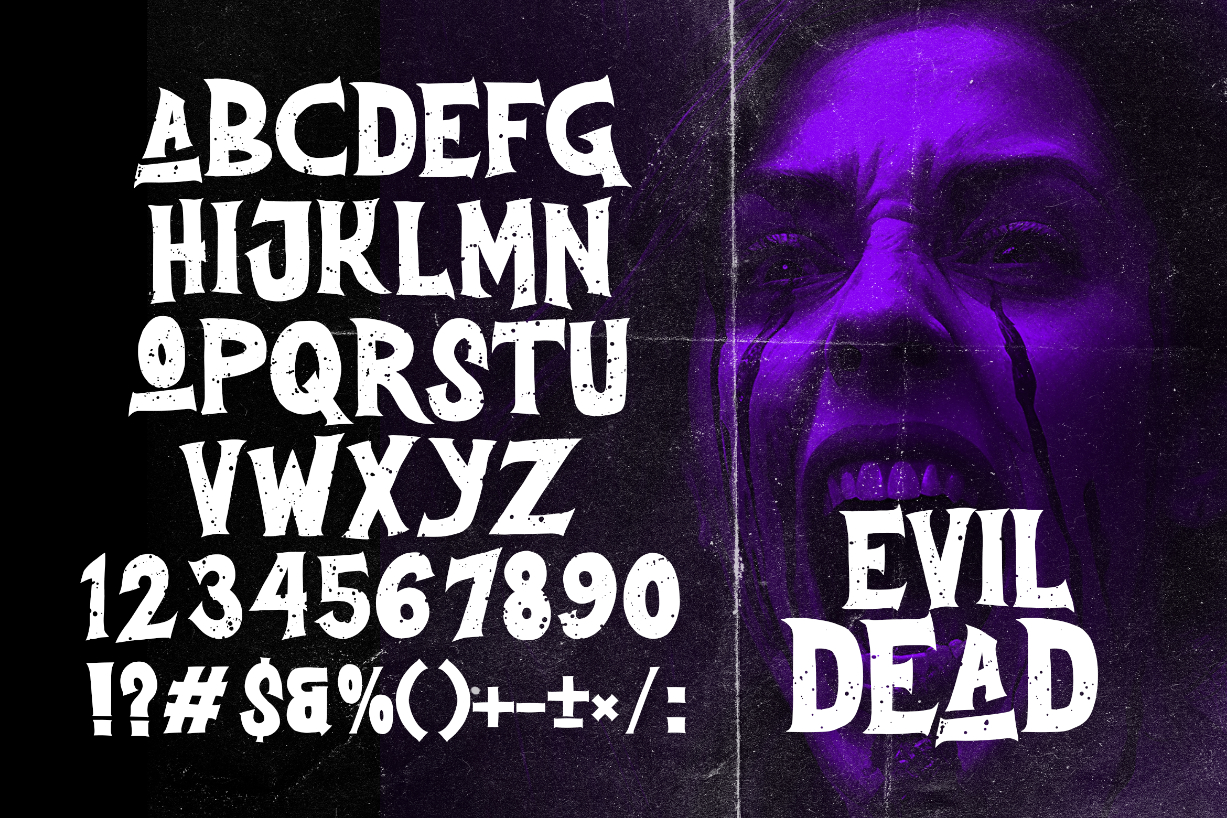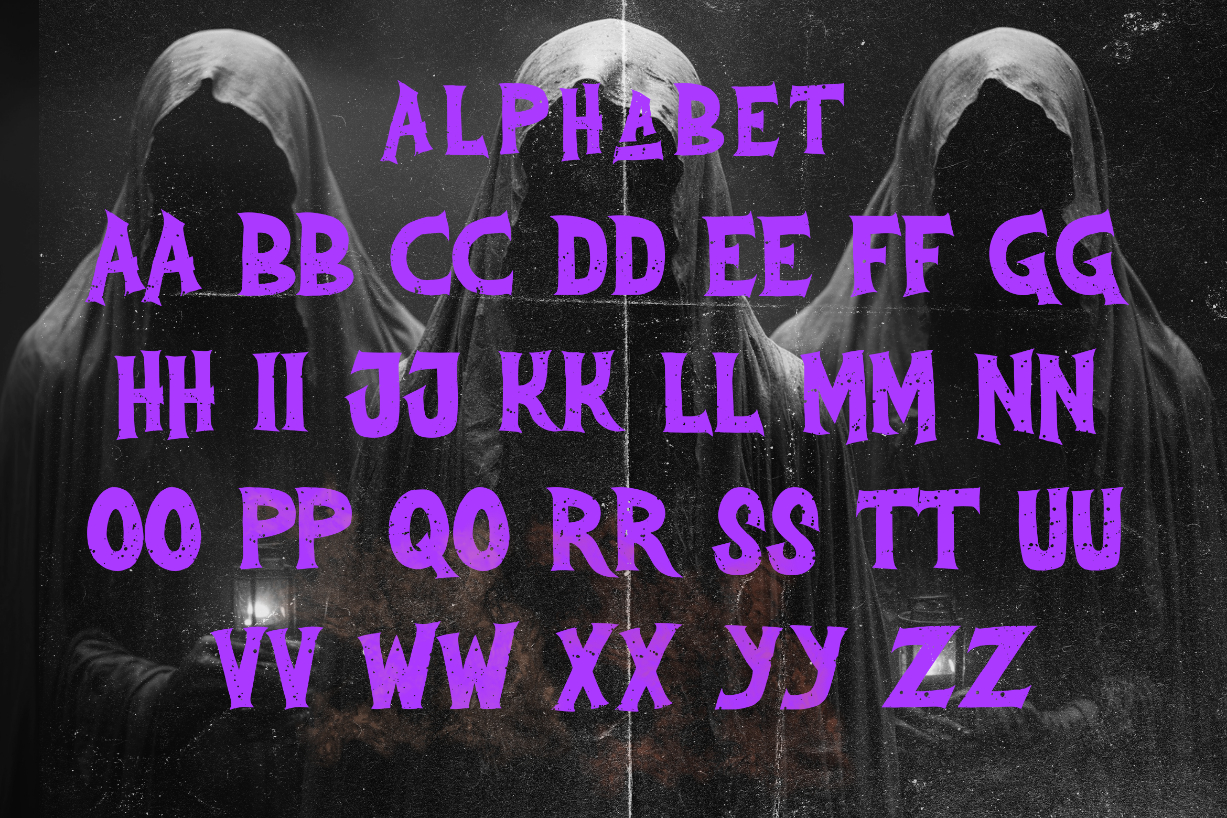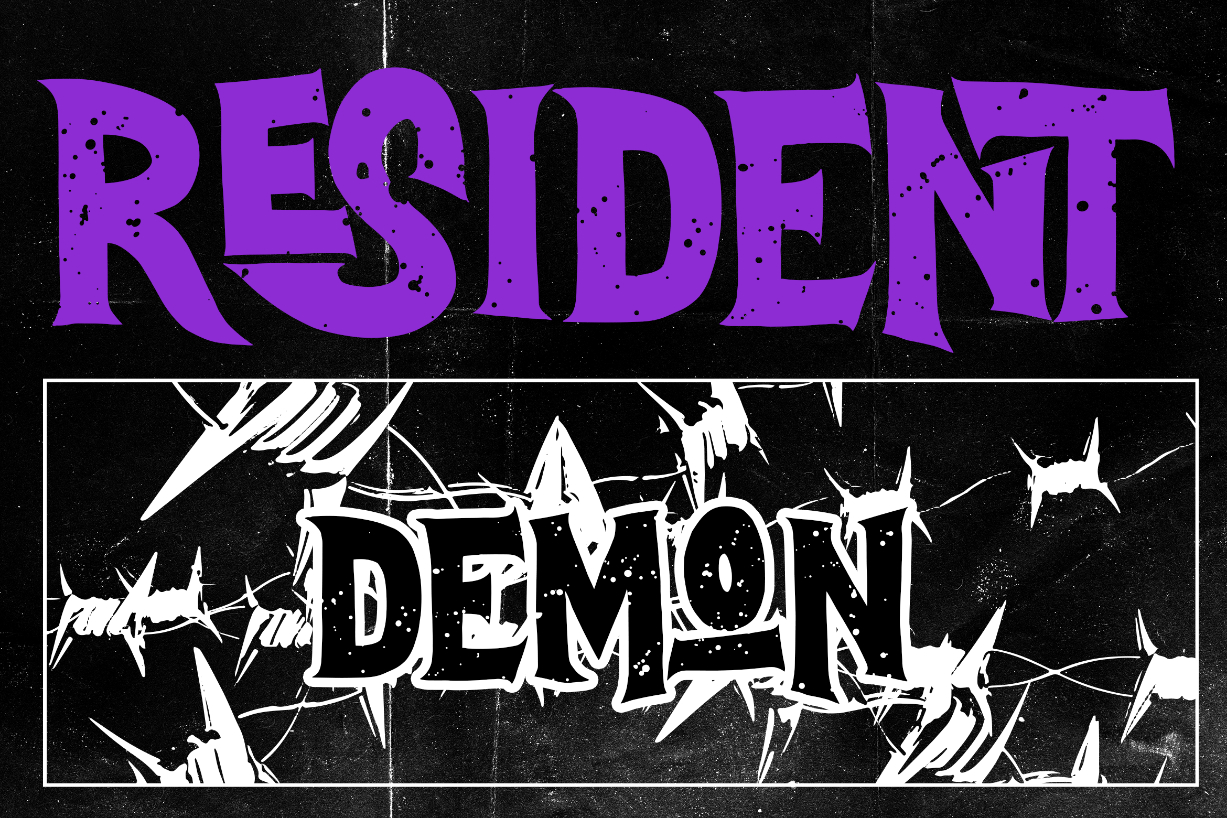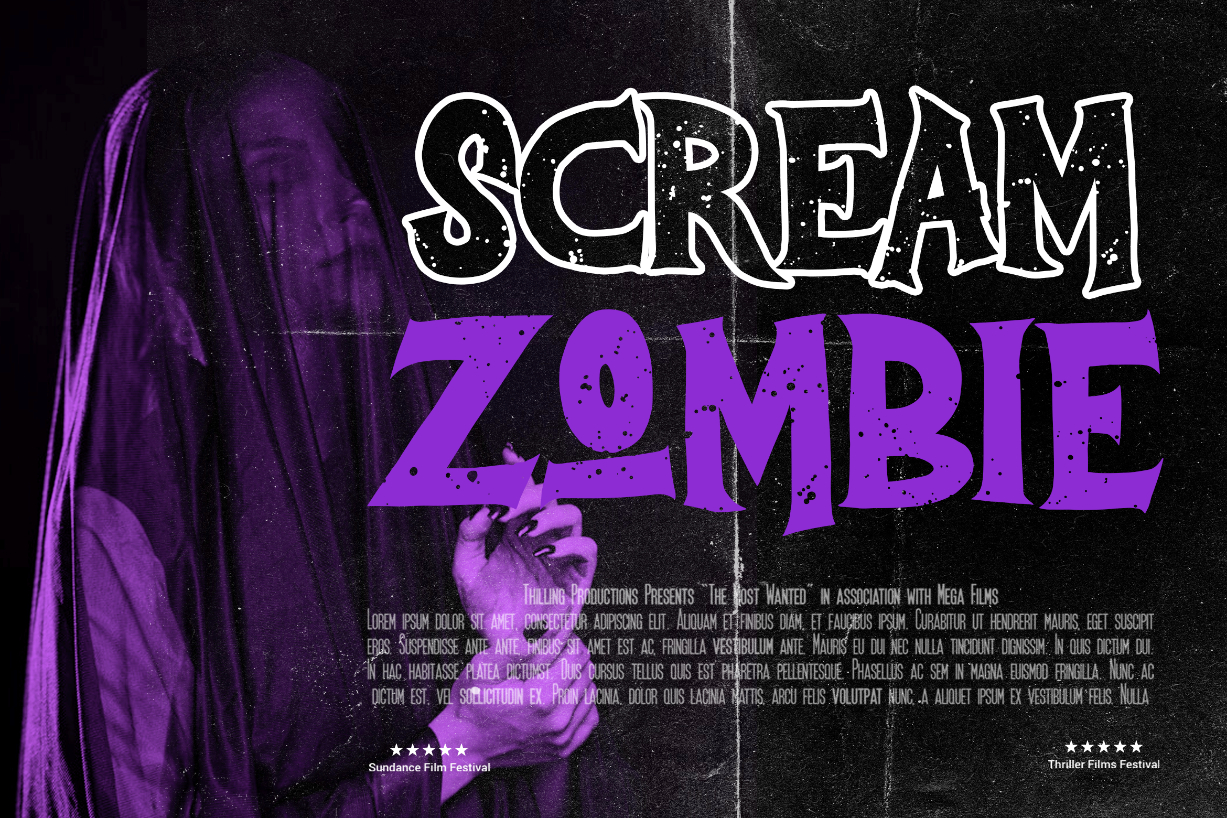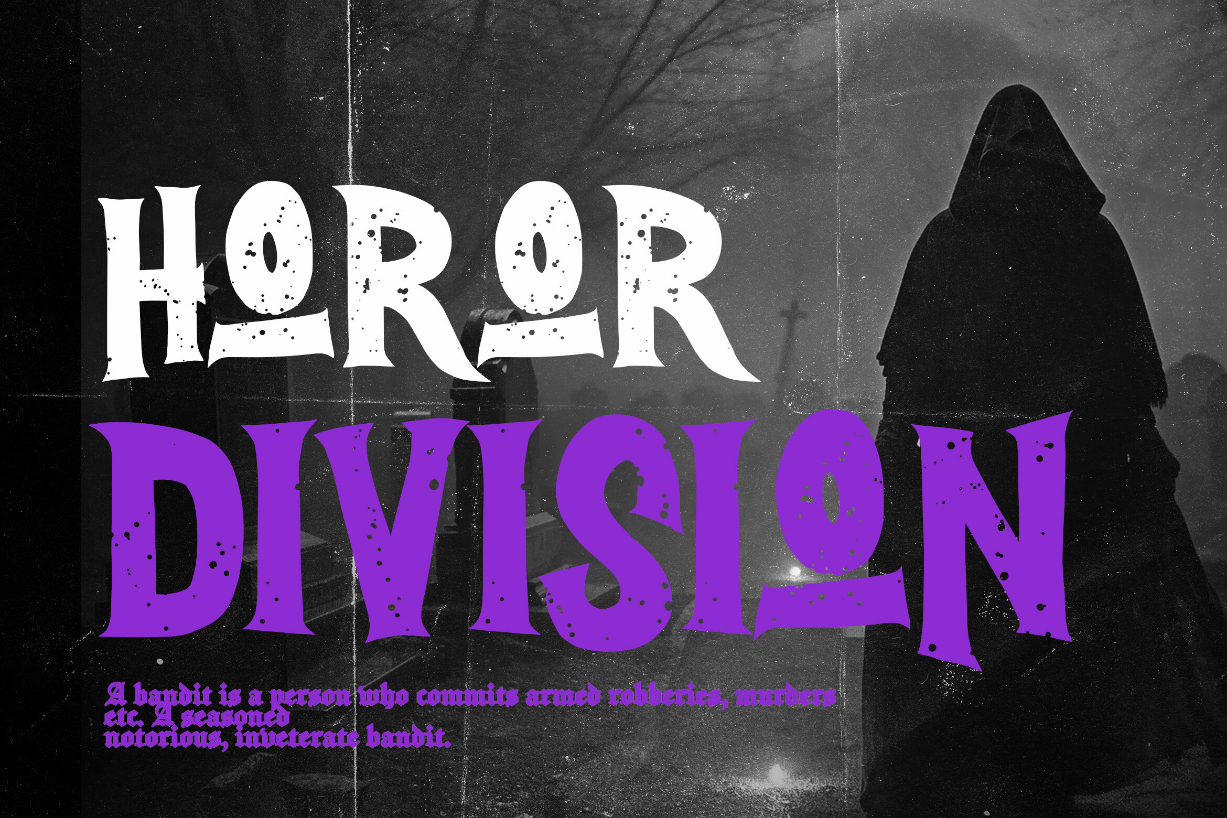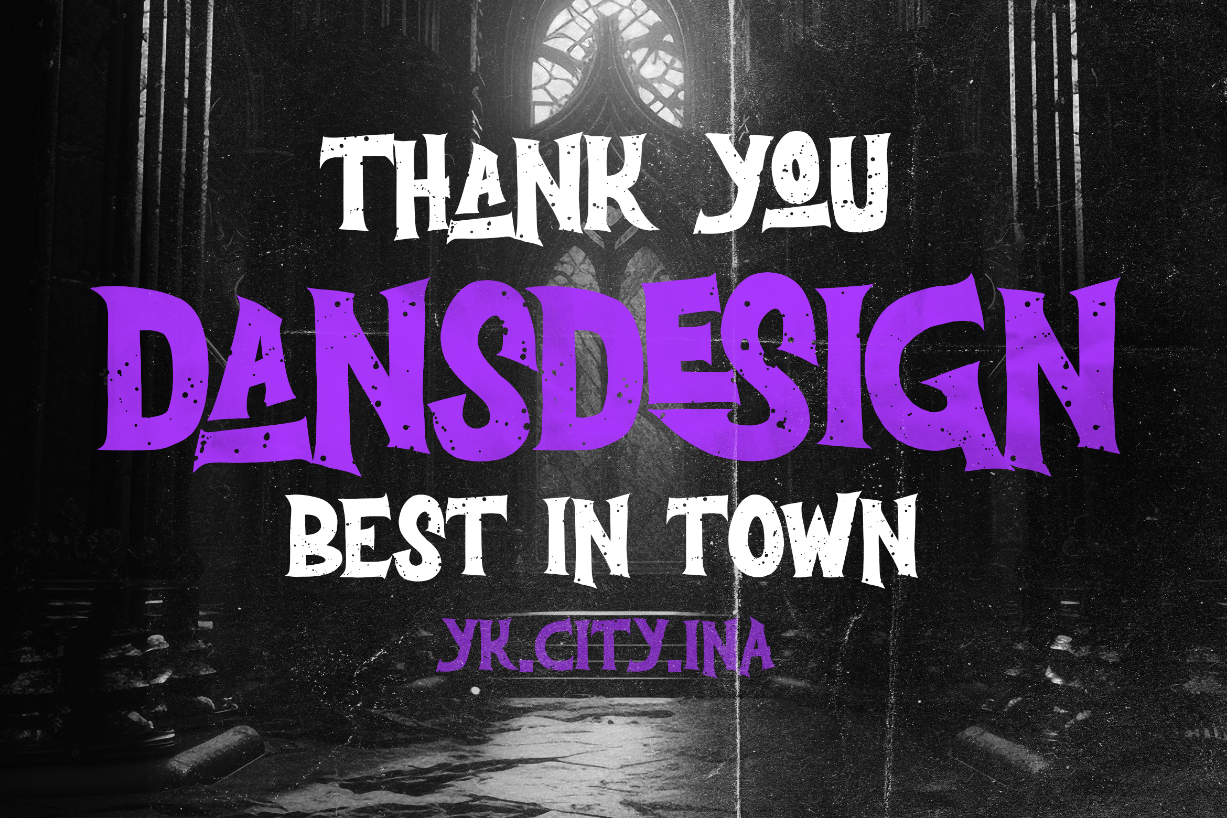
Magic Vigerland Font
About Magic Vigerland Font
The Magic Vigerland Horror Y2k Graffiti Font
The Magic Vigerland Horror Y2k Graffiti Font is a distinct, highly detailed, Horror Y2k Graffiti Font.
It would make a great choice for exquisite Music, Posters, retro-urban designs, business branding, logos, vintage designs, and more.